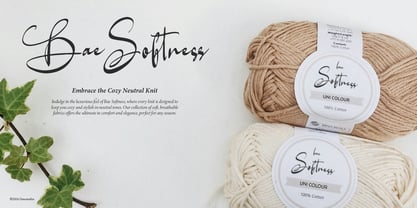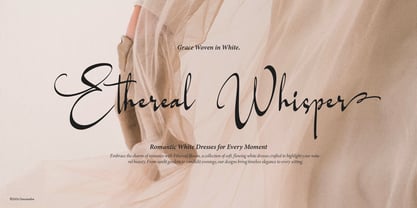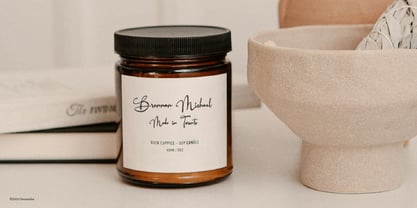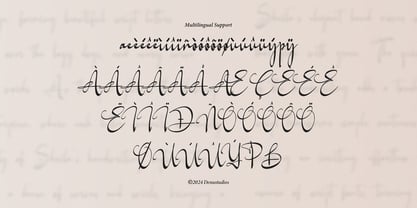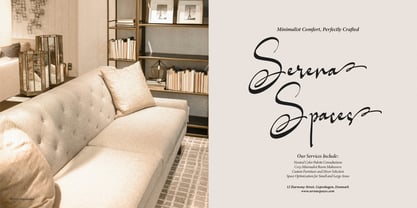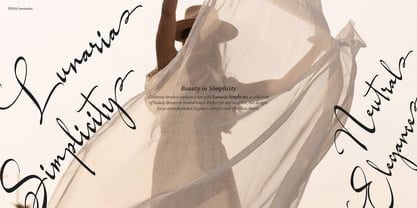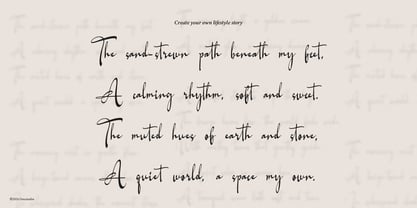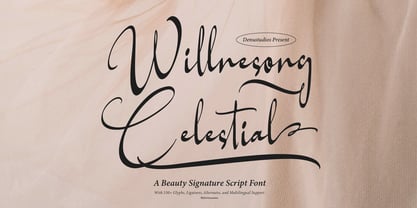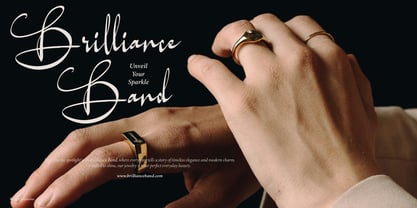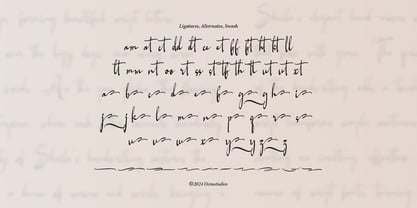
Willnesong Celestial
The Willnesong Celestial Font Family was designed by Dede Nugraha and published by Denustudio. Willnesong Celestial contains 2 styles and family package options. More about this family
Willnesong Celestial | Beauty Signature Script, from Denustudios, suitable for any projects such as: logos, branding projects, homeware designs, product packaging, mugs, quotes, posters, shopping bags, t-shirts, book covers, name card, invitation cards, greeting cards, label, photography, watermark, special events, and all your other lovely projects that need a Beauty Signature Script taste.
• Regular and Italic
• Alternate and Ligature
• Fonts include multilingual support